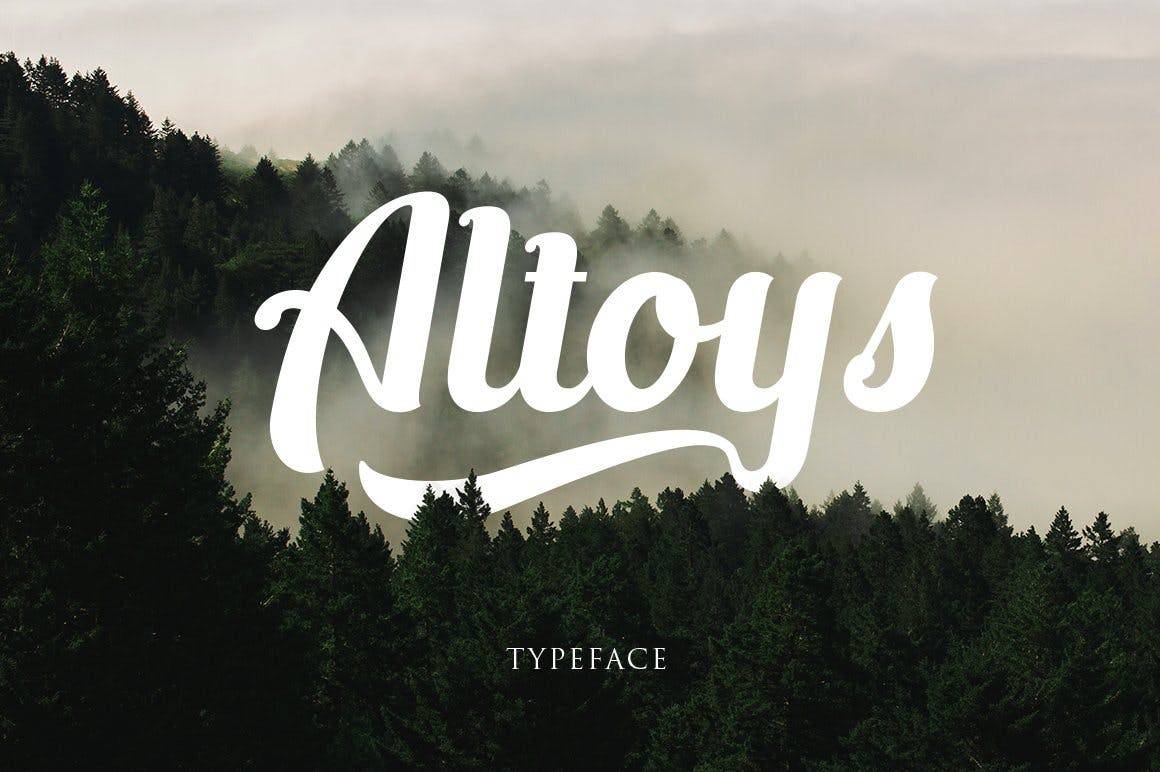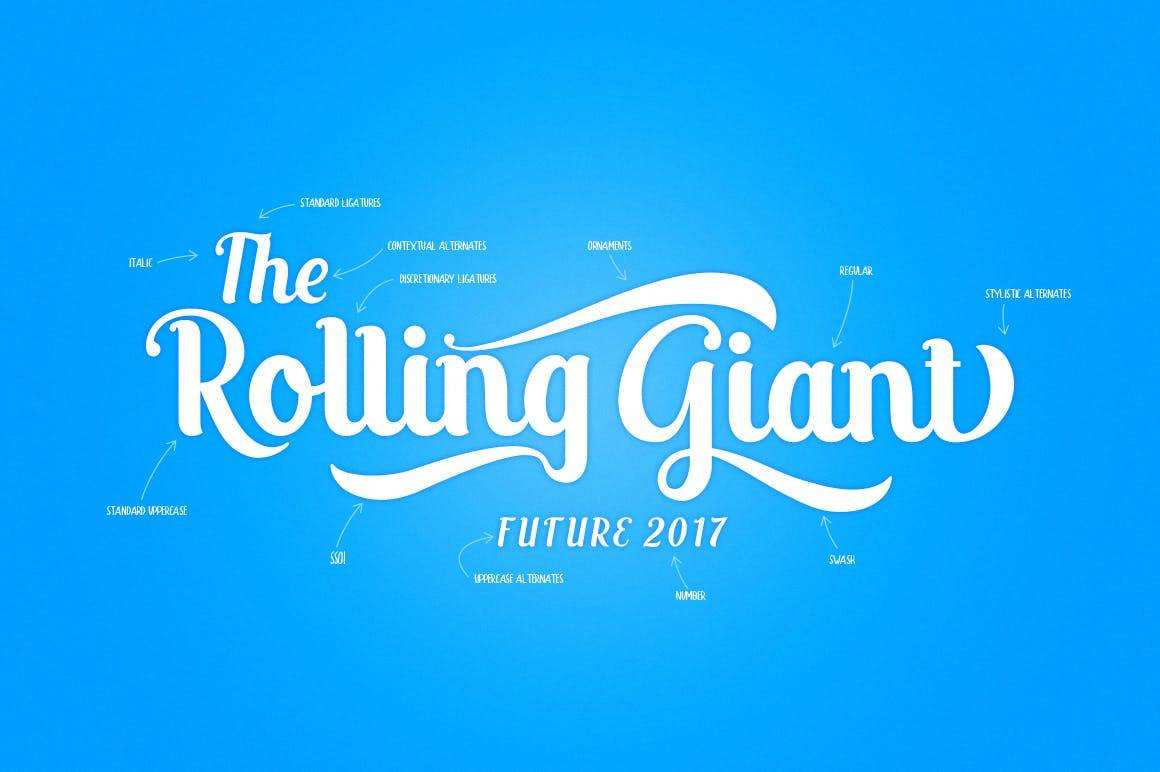
Altoys Italic Demo is a stylish script font with a smooth, flowing design that brings a sense of elegance and warmth. Its medium weight and moderately condensed letterforms, combined with distinctive italic slant and playful curves, make it ideal for creating inviting headlines, logos, and packaging with a personal, handcrafted feel. This font works well in contexts where a friendly yet refined touch is desired, such as fashion branding, creative projects, and editorial highlights.
Altoys Italic Demo Typeface Font
About Altoys Italic Demo Typeface Font